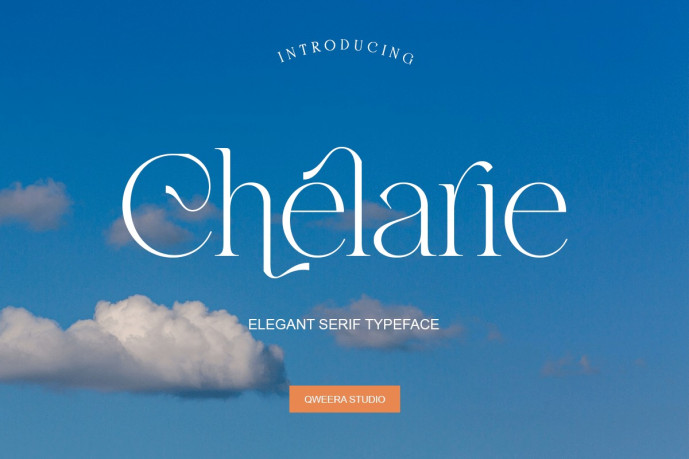
Chelarie – Modern Elegant Serif Font
Designer: Idhham Cholid Rikzano Yahya
Chelarie is an elegant serif font crafted for fashion branding, editorial layouts, luxury logos, premium packaging, and refined visual identity. With its graceful letterforms, high-contrast structure, and stylish alternate details, Chelarie brings a clean, airy, and sophisticated presence to modern design projects.
Its polished display character works beautifully for fashion campaigns, boutique logos, magazine headlines, beauty branding, product labels, social media visuals, elegant invitations, and premium brand presentations. Chelarie includes uppercase and lowercase characters, stylish alternates, ligatures, multilingual support, professional kerning, Regular and Italic styles, plus OTF, TTF, formats for polished print and digital use.
Bring refined elegance, editorial clarity, and modern serif sophistication into your next branding, fashion, or packaging project with Chelarie.
Elegant modern serif style
Complete uppercase and lowercase characters
Stylish alternates and ligatures
Multilingual character support
Professional kerning for polished typography
Regular and Italic font styles
Clean editorial look for fashion, beauty, and premium branding